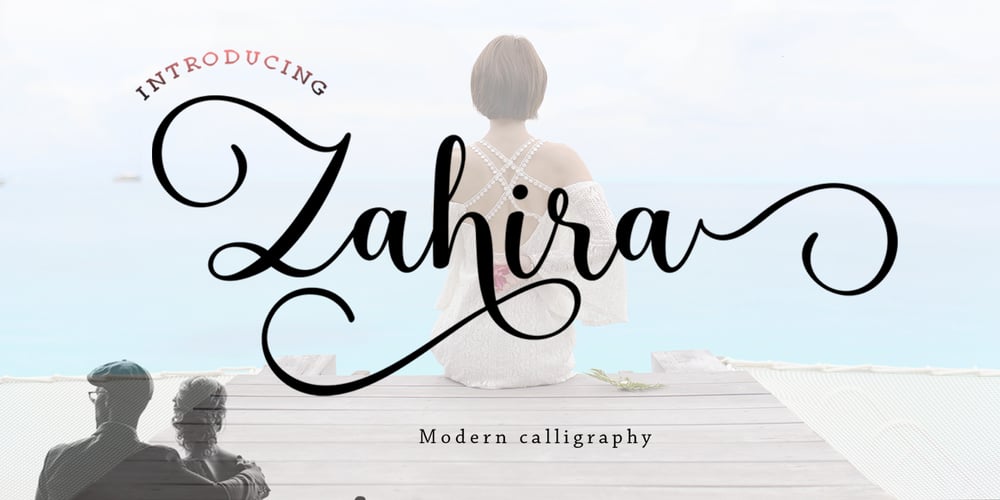
Zahira Font Family was designed by Nasrullah and published by Sulthan Studio. Zahira contains 1 styles and family package options. is a romantic and sweet calligraphy typeface with characters that dance along the baseline. It will add a luxury spark to any design project that you wish to create! This font is PUA encoded which means you can access all of the amazing glyphs and ligatures with ease!